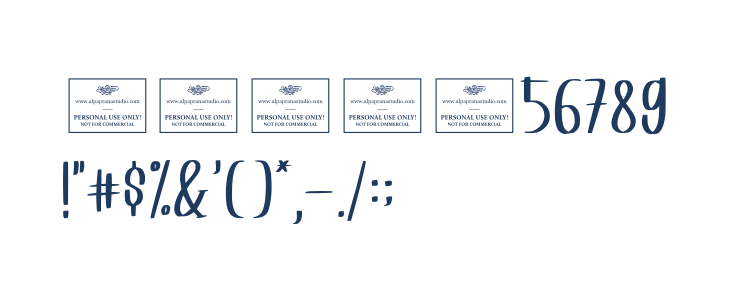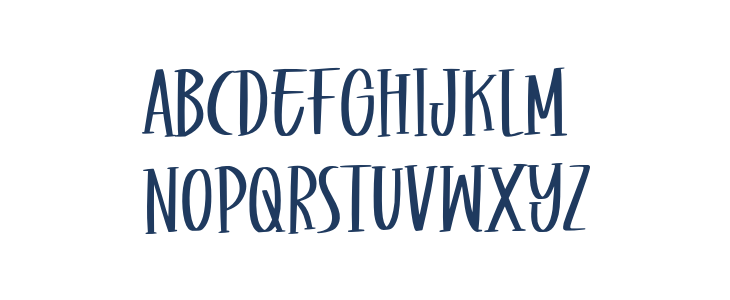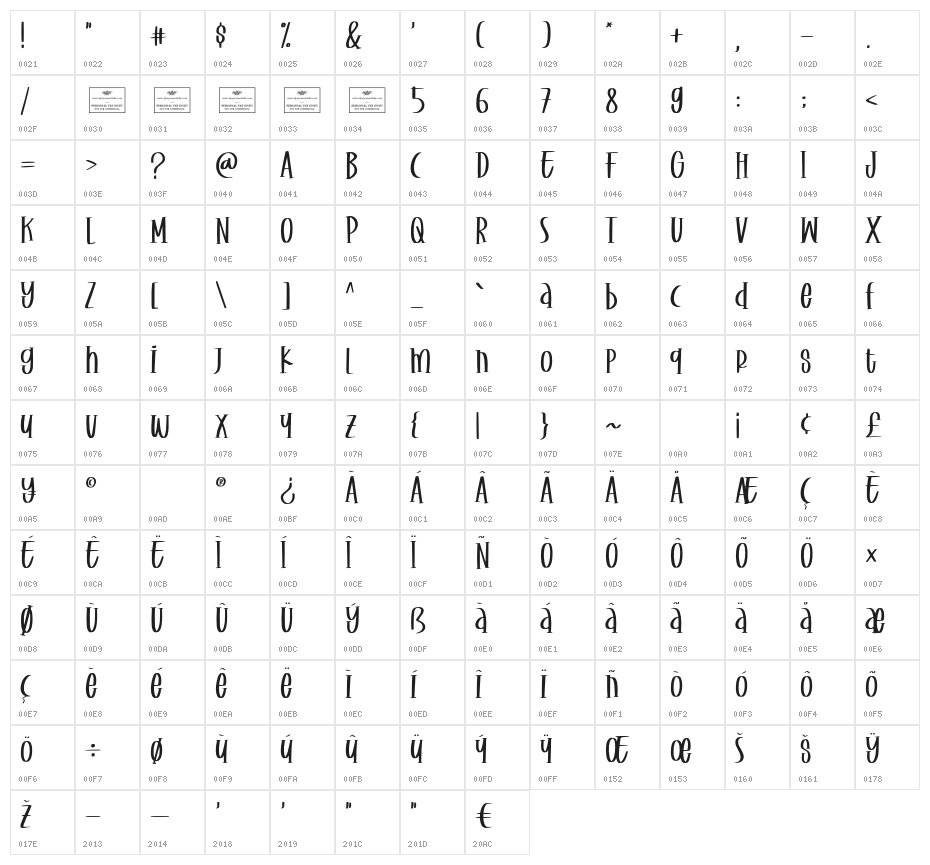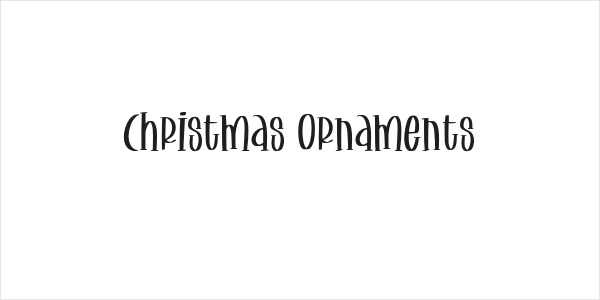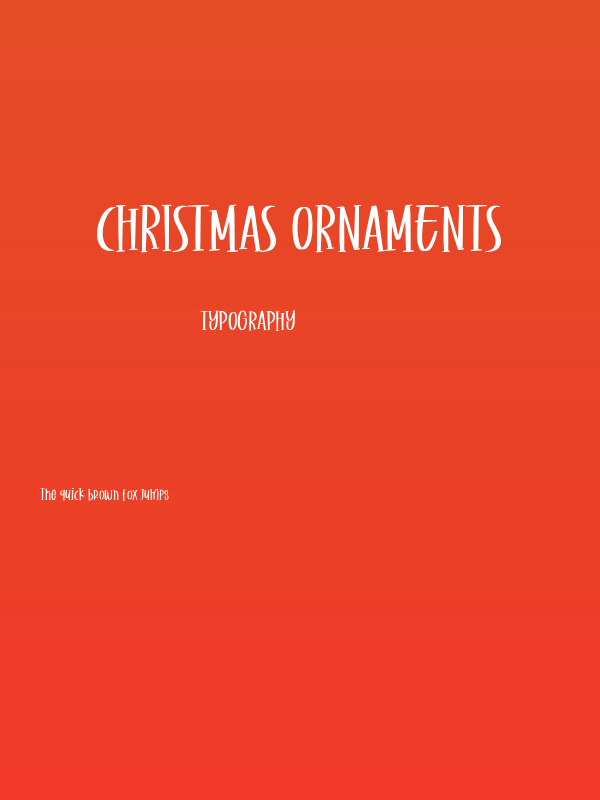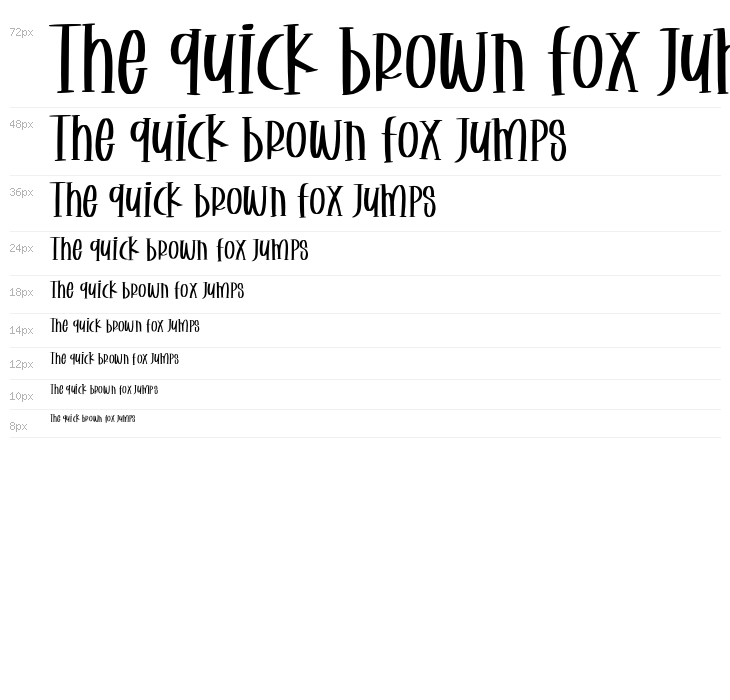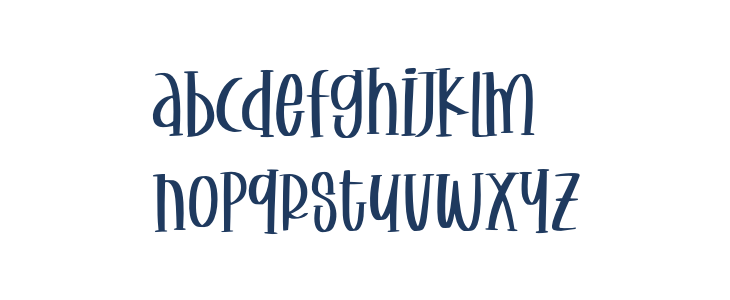
Christmas Ornaments Font
Christmas Ornaments Description
A playful, tall, and narrow decorative typeface with whimsical curves and varying stroke thickness, giving it a festive and hand-drawn appearance. The characters have a high x-height and exaggerated ascenders and descenders, contributing to its lively and informal style.
| Overall Style | Decorative, Festive, Playful |
| Use Case | Headlines, Posters, Invitations, Decorative text |
| Proposed Projects | Holiday cards, event invitations, festive posters, children's book covers, party decorations. |